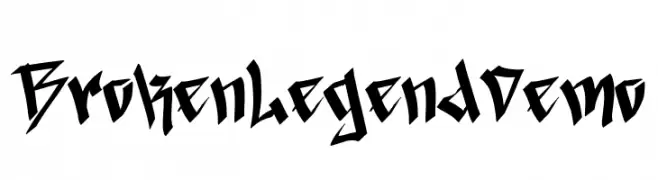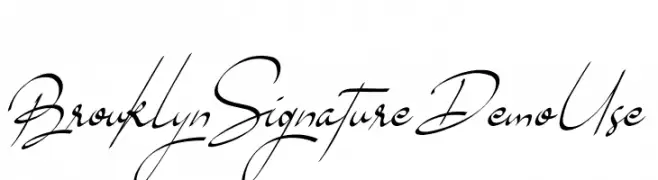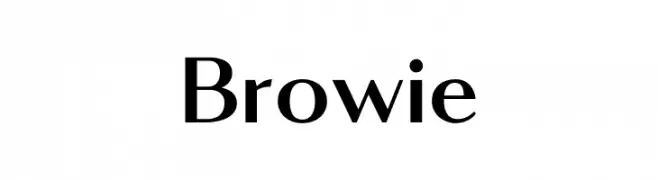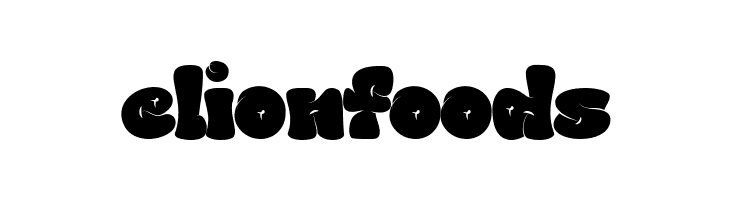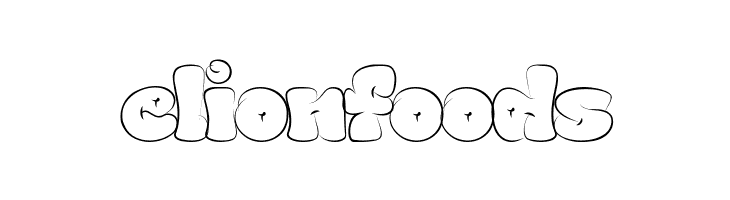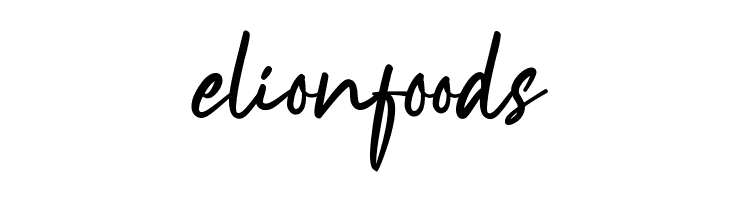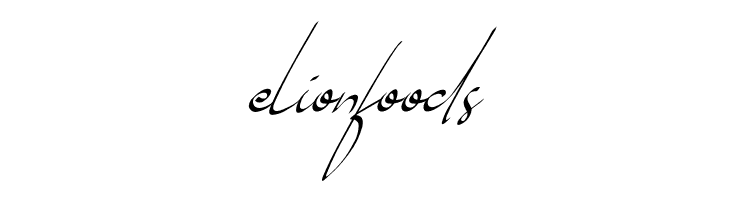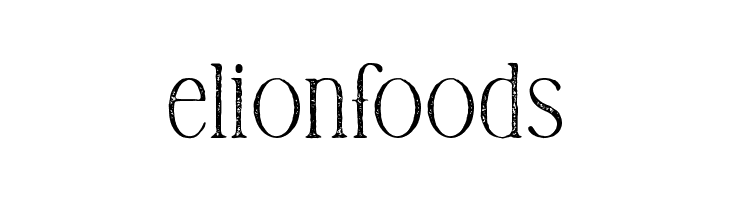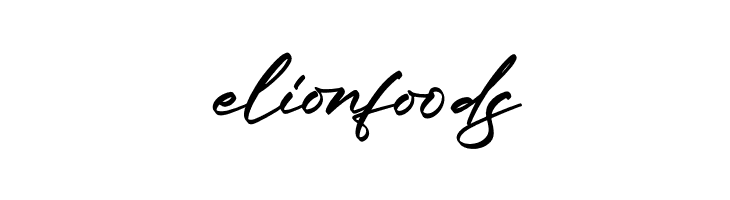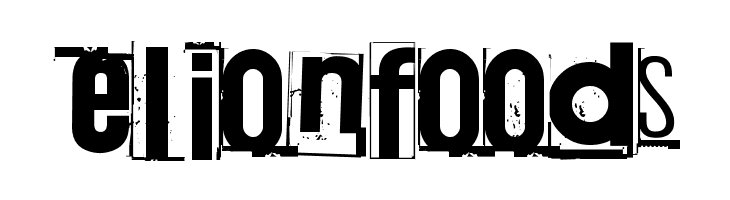
( Fonts by productype.com )
A bold, playful font with thick, rounded strokes and a whimsical style.
( Fonts by productype.com )
A playful, bold outline font with a bubble-like appearance.
( Fonts by NihStudio )
A dynamic and expressive handwritten font with fluid strokes and a casual elegance.
( Fonts by Haris Gozali )
An elegant, cursive font with a signature-like style and high contrast strokes.
A vintage serif font with a distressed, textured appearance.
A modern, high-contrast serif font with elegant curves and bold strokes.
( Fonts by Letterena Studios )
A fluid and elegant script font with a natural handwritten style.
( Fonts by Juha Korhonen )
A distressed, collage-style font with a chaotic and artistic appearance.
( Fonts by Yoga Letter )
Gothic-style font with bold, angular strokes.
( Fonts by Wildan Type )
Elegant script font with a handwritten style.